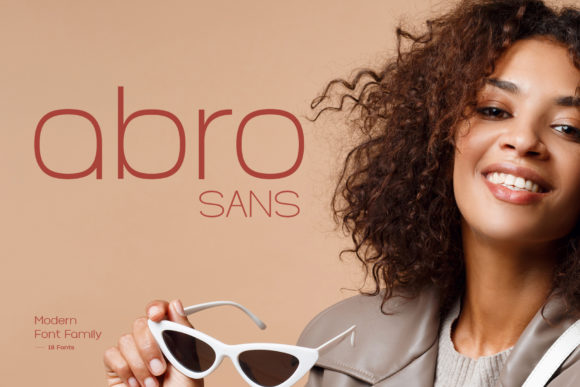
Embark on a typographic journey with Abro, the font meticulously tailored for captivating online experiences. Seamlessly blending legibility and aesthetics, Abro's clean lines and open letterforms dance across your screens, exuding a modern, minimalist touch that instantly elevates any web design.
Designed with a keen eye for detail and a deep understanding of digital communication, Abro is the perfect font for crafting websites that resonate with your audience. Whether you're a seasoned web designer seeking to make a striking impact or a creative entrepreneur looking to establish a strong online presence, Abro is your trusted companion.
With Abro as your typographic muse, your website becomes more than just a collection of words and images; it transforms into an immersive, engaging space that draws visitors in and compels them to stay. It's the font that breathes life into your digital creations, inviting readers to linger, explore, and connect with your brand on a deeper level.
But Abro's allure extends beyond its visual prowess. Its versatility is nothing short of remarkable, effortlessly adapting to a myriad of web design styles. From bold and vibrant layouts to sleek and sophisticated interfaces, Abro seamlessly blends in, enhancing the overall user experience with its timeless elegance.
With Abro, you gain the power to effortlessly create websites that reflect your unique vision and captivate your audience from the moment they land on your page. It's the font that sets you apart, allowing your website to shine as a beacon of creativity and innovation in the vast digital landscape.
Join the ranks of design-savvy individuals who have embraced Abro's transformative power. Whether you're crafting a personal portfolio, an e-commerce store, or a corporate website, Abro is the font that elevates your online presence, turning mere visitors into loyal customers.